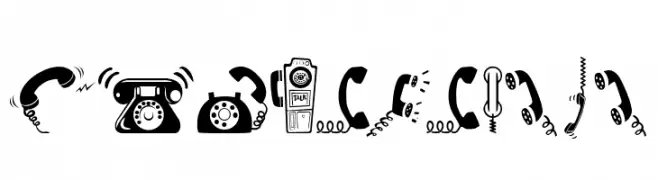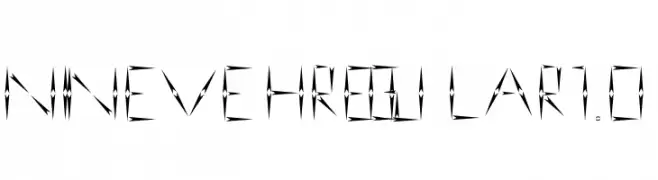
A decorative, abstract font with geometric shapes and symmetrical patterns.
A collection of geometric shapes with a striped, slatted design.
A bold, geometric dingbat font featuring road sign shapes.
A bold, decorative icon set with diverse abstract and pictorial symbols.
A playful, hand-drawn collection of bold and whimsical symbols.
A bold, decorative font with geometric patterns and angular lines.
A playful font with letters embedded in playing cards, featuring card suits for a game-themed design.
A cryptic, geometric font with an ancient, mysterious aesthetic.
A pictogram font with diverse telephone and communication illustrations.
A decorative, angular font with sharp, geometric shapes and high contrast.